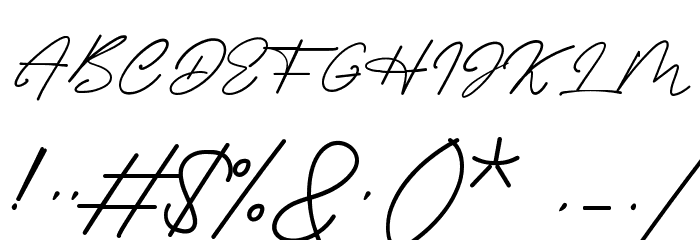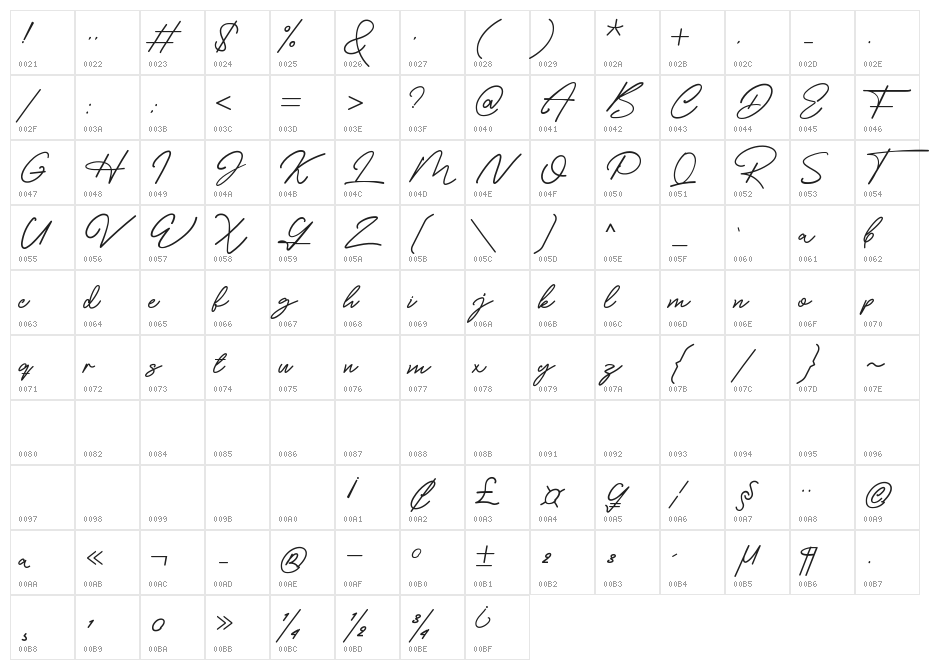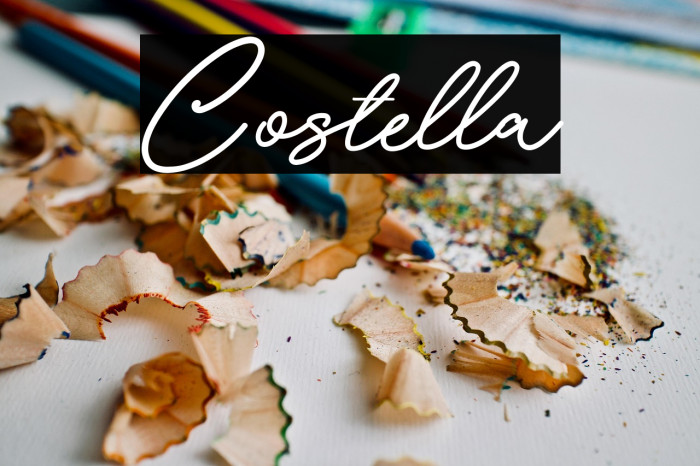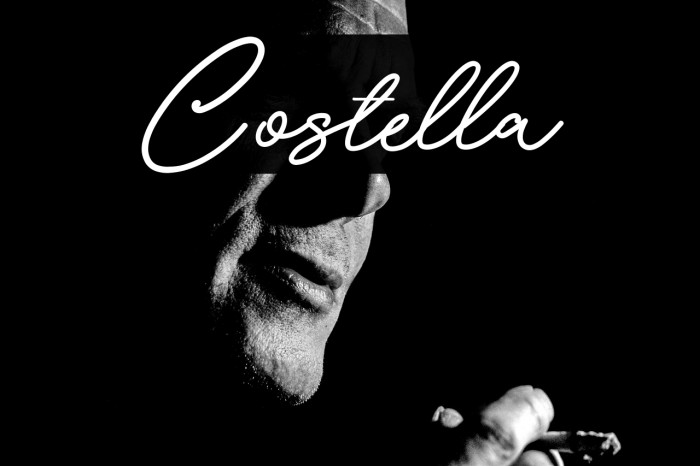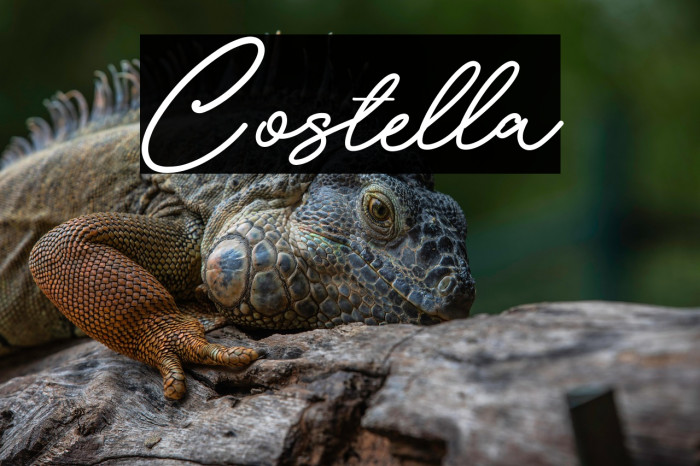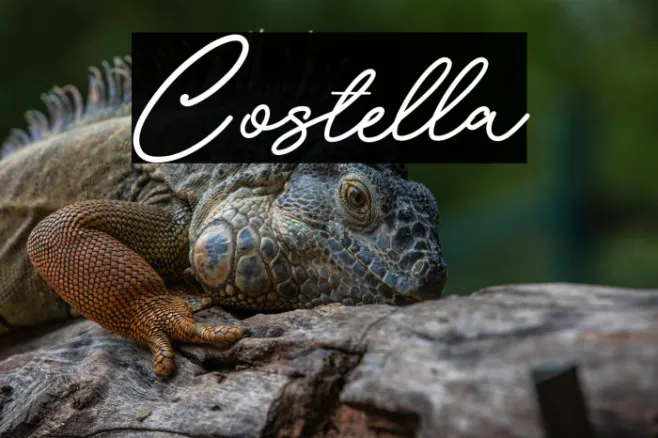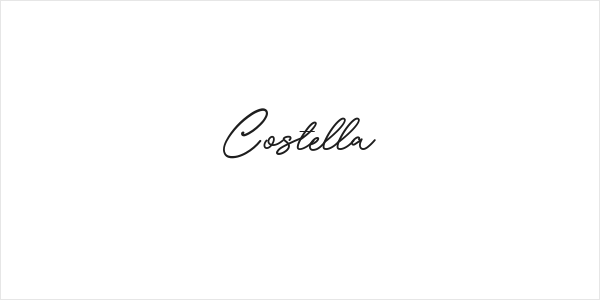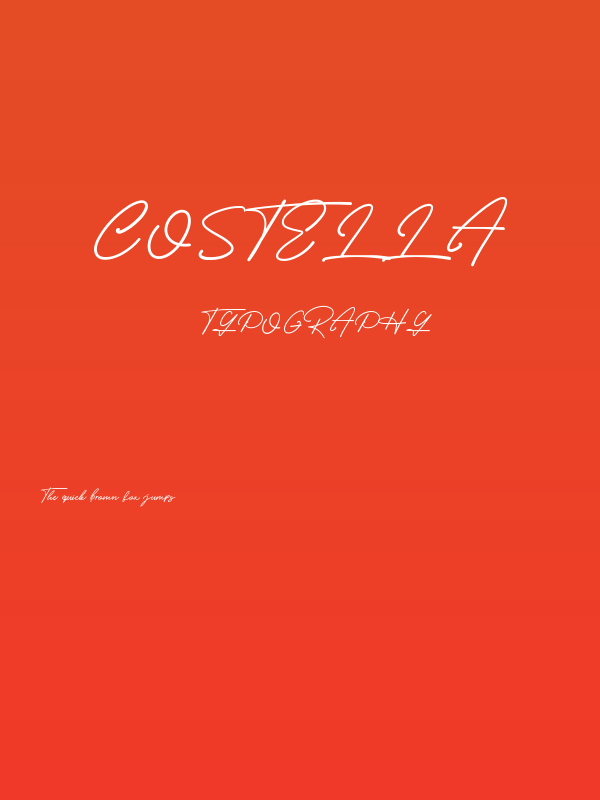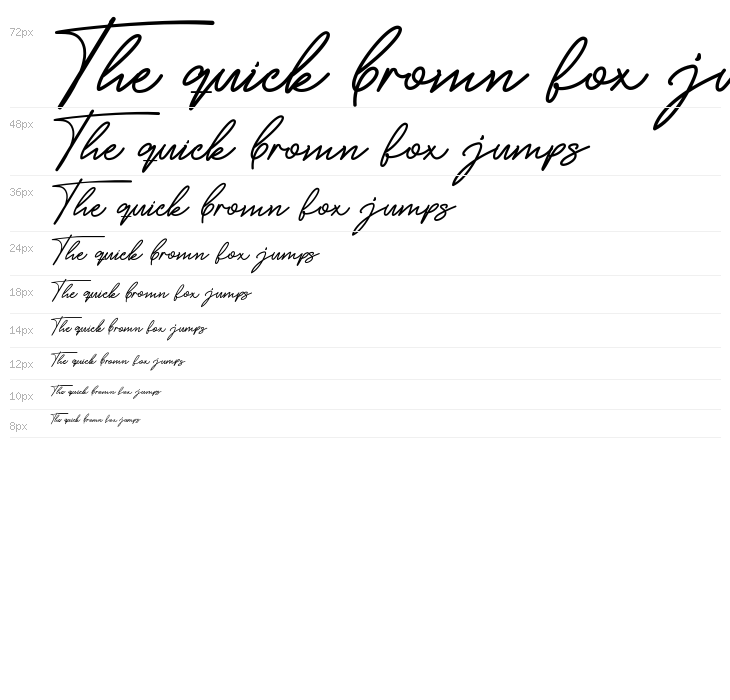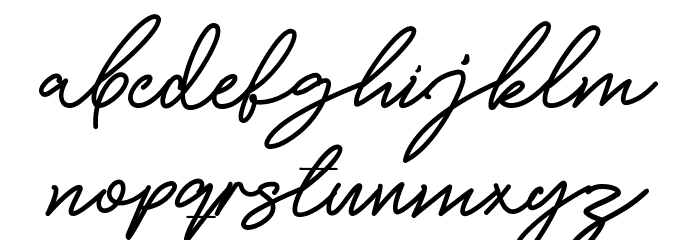
Costella Font
Costella Description
This font exudes a sophisticated and elegant script style, characterized by its fluid and connected letterforms. The uppercase letters are slightly more formal, with a graceful slant and smooth curves, while the lowercase letters maintain a consistent flow, enhancing readability. The font's design is reminiscent of classic calligraphy, with a modern twist that makes it suitable for a variety of applications. The numerals and special characters are crafted with the same attention to detail, ensuring a cohesive look across all text elements. Its overall appearance is both stylish and versatile, making it an excellent choice for projects that require a touch of elegance and personality.